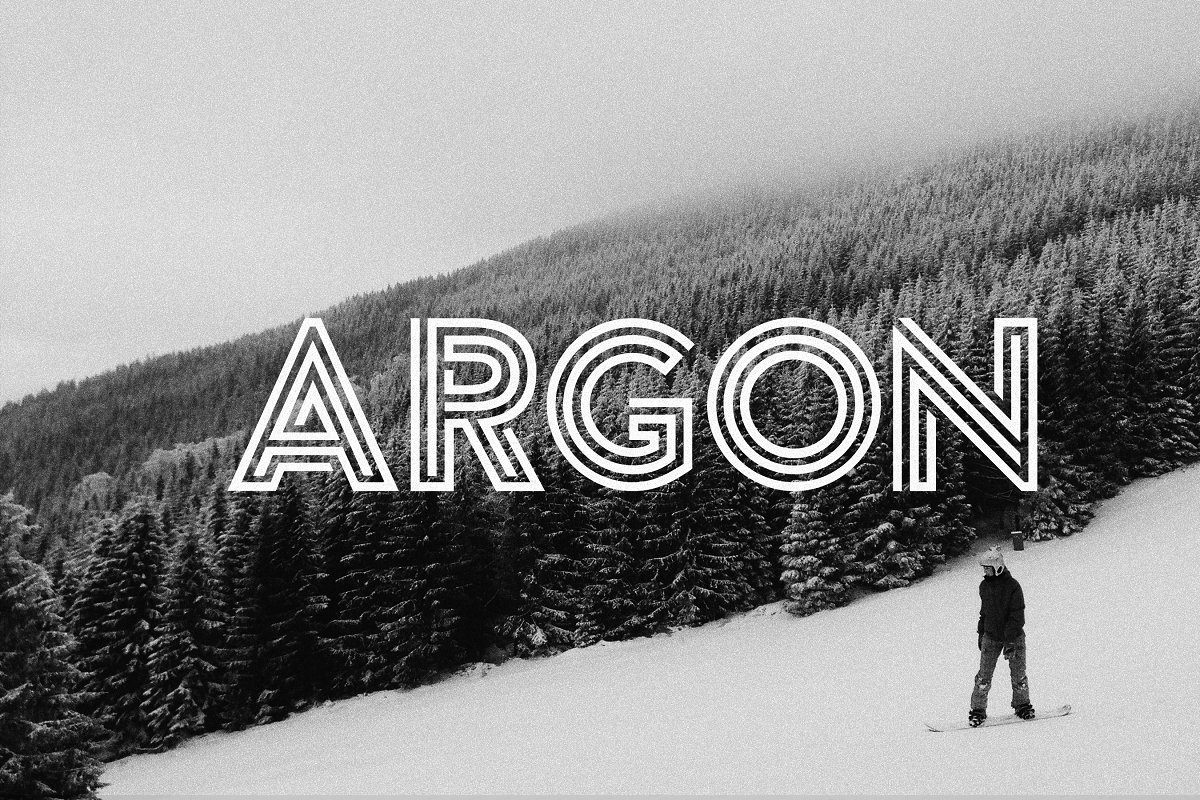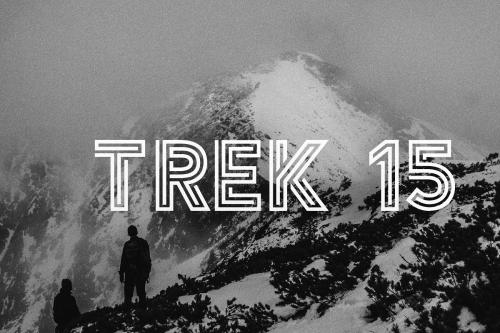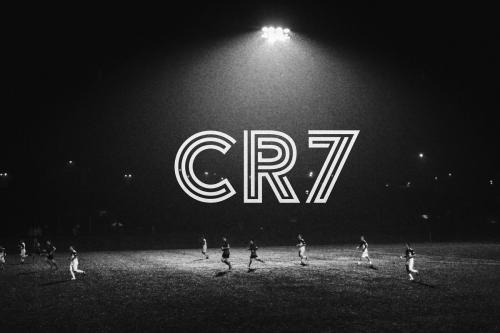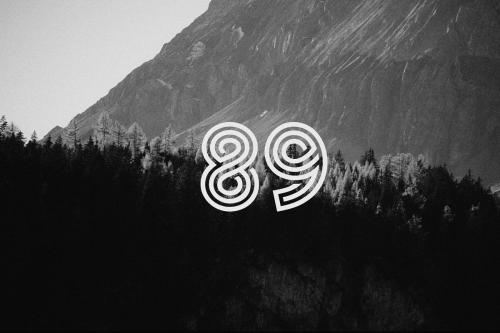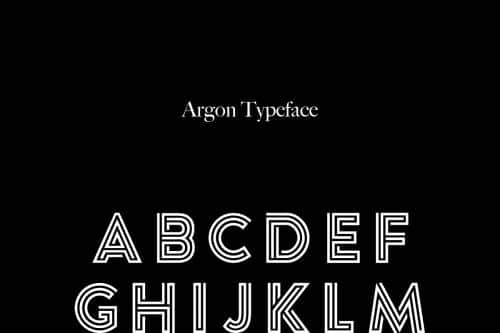
Argon is a unique free font built on three tick lines, ideal for headlines and graphic design.
Made for giving titles an extra punch, Argon packs a full set of capitals, numbers and punctuation. Be it gigs, sports events, logo designs or humble lost cat posters, Argon was made to bring impact.
Each letter is a solved three line thick puzzle that took me many months to put together. Hopefully you enjoy the result!